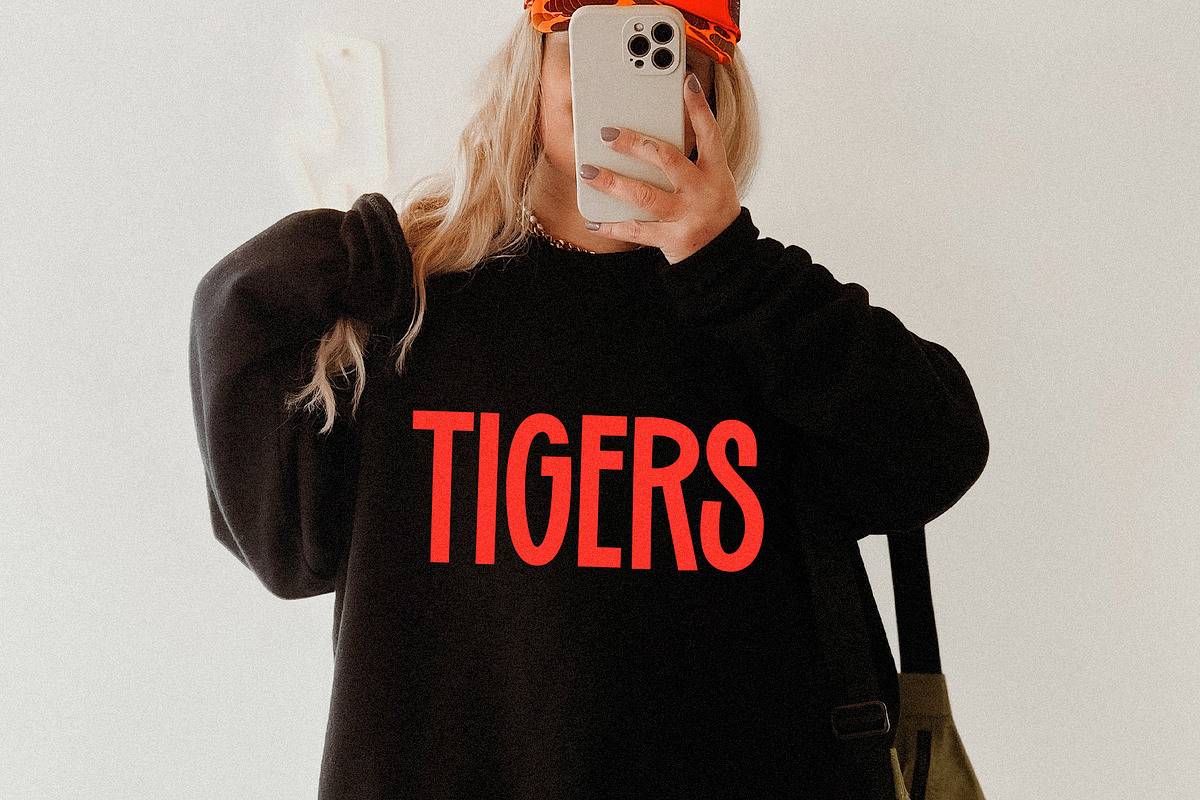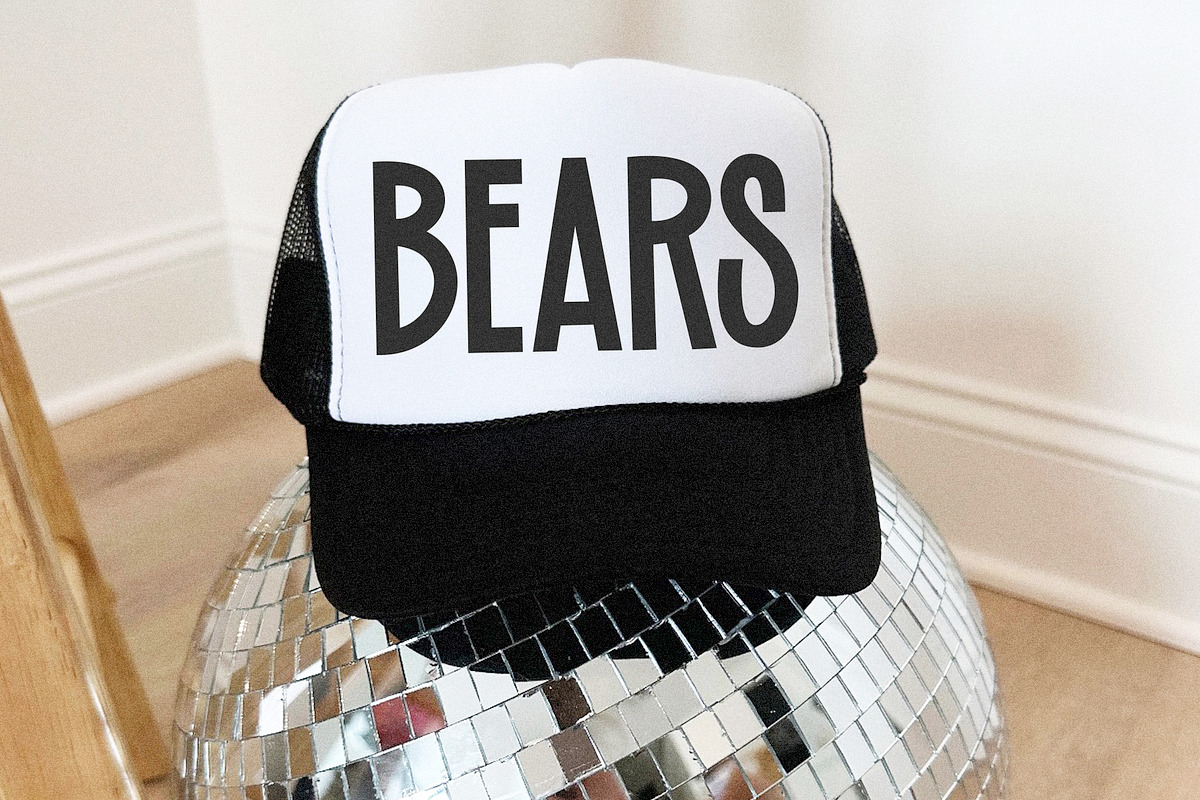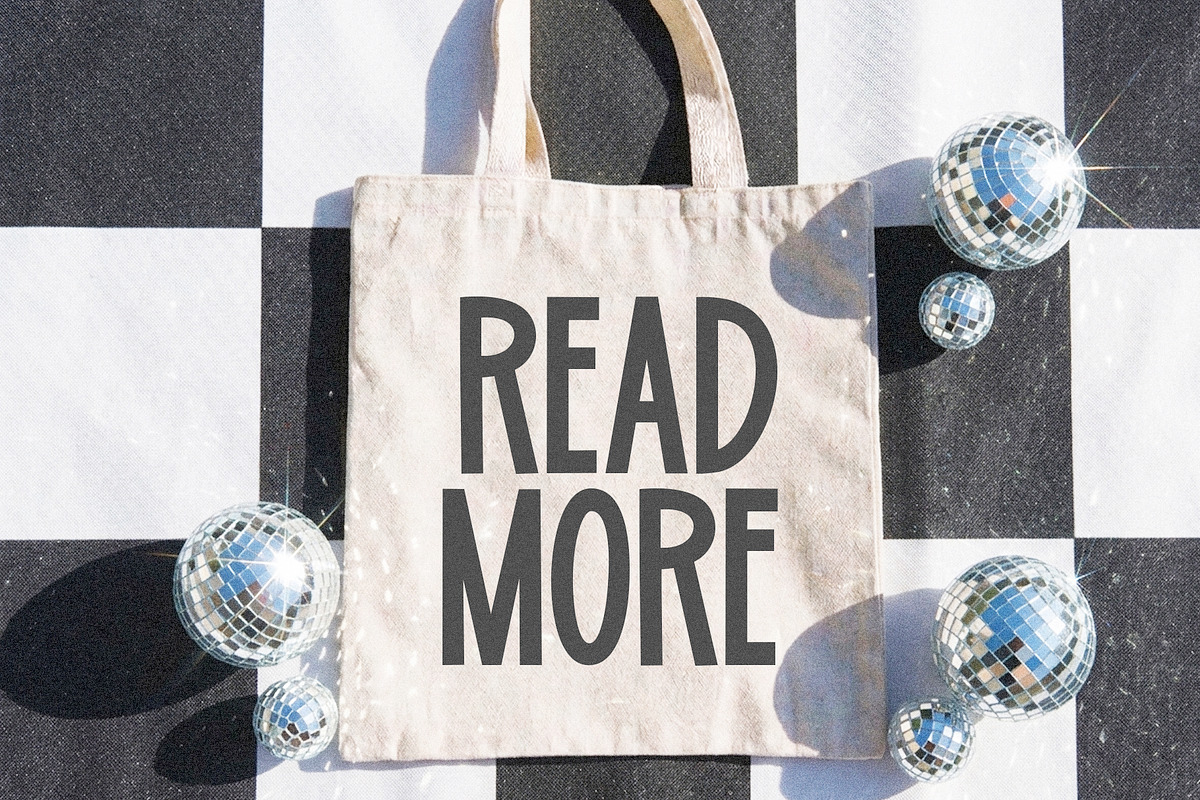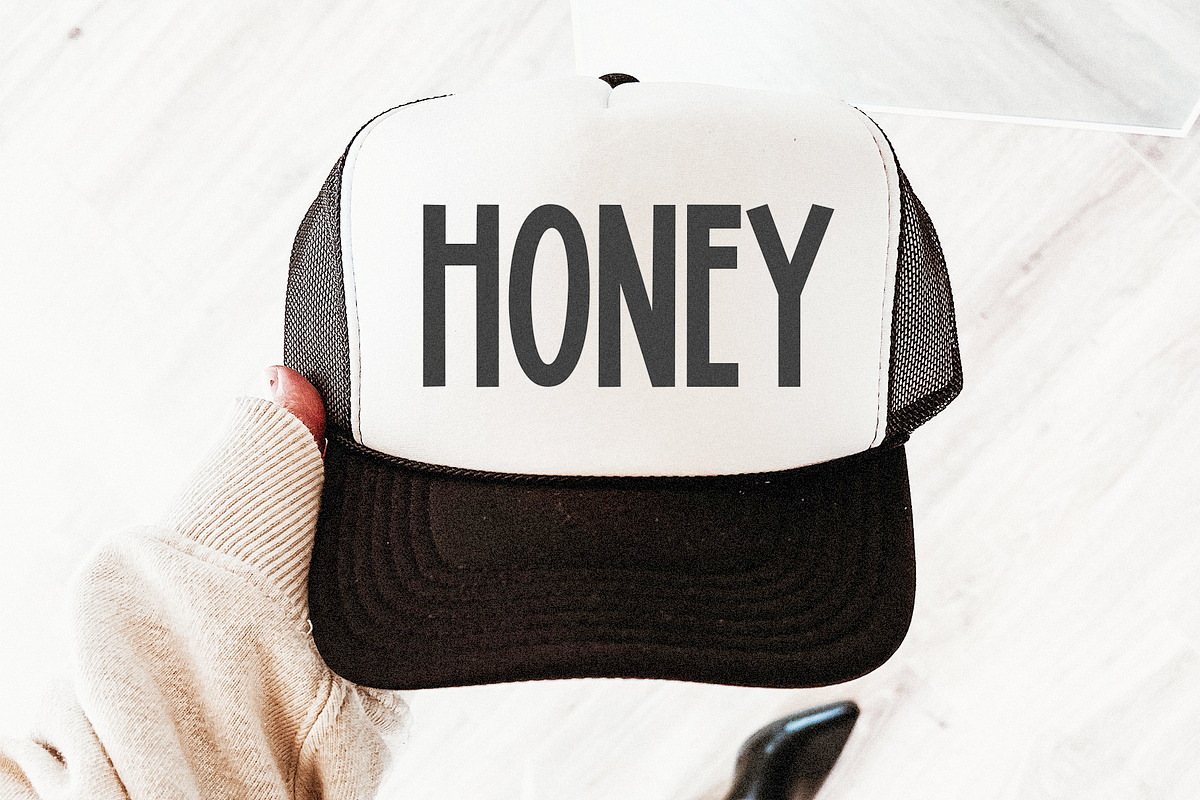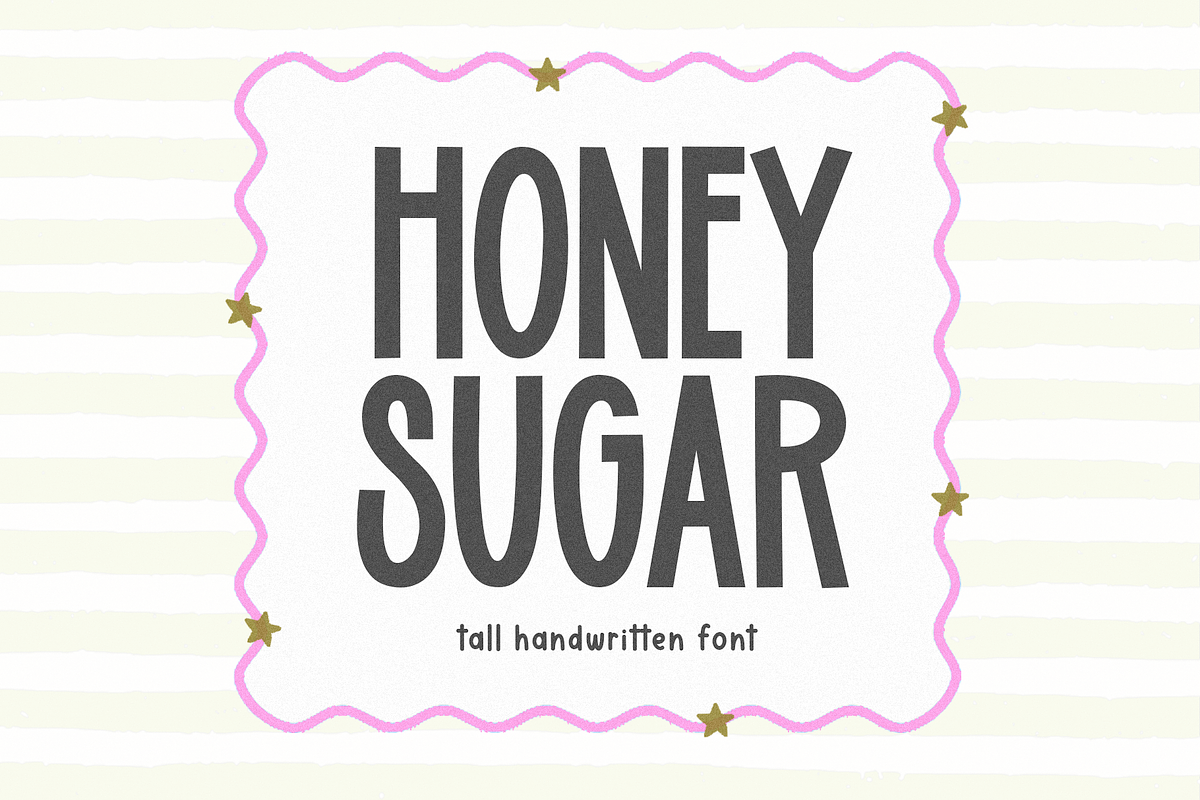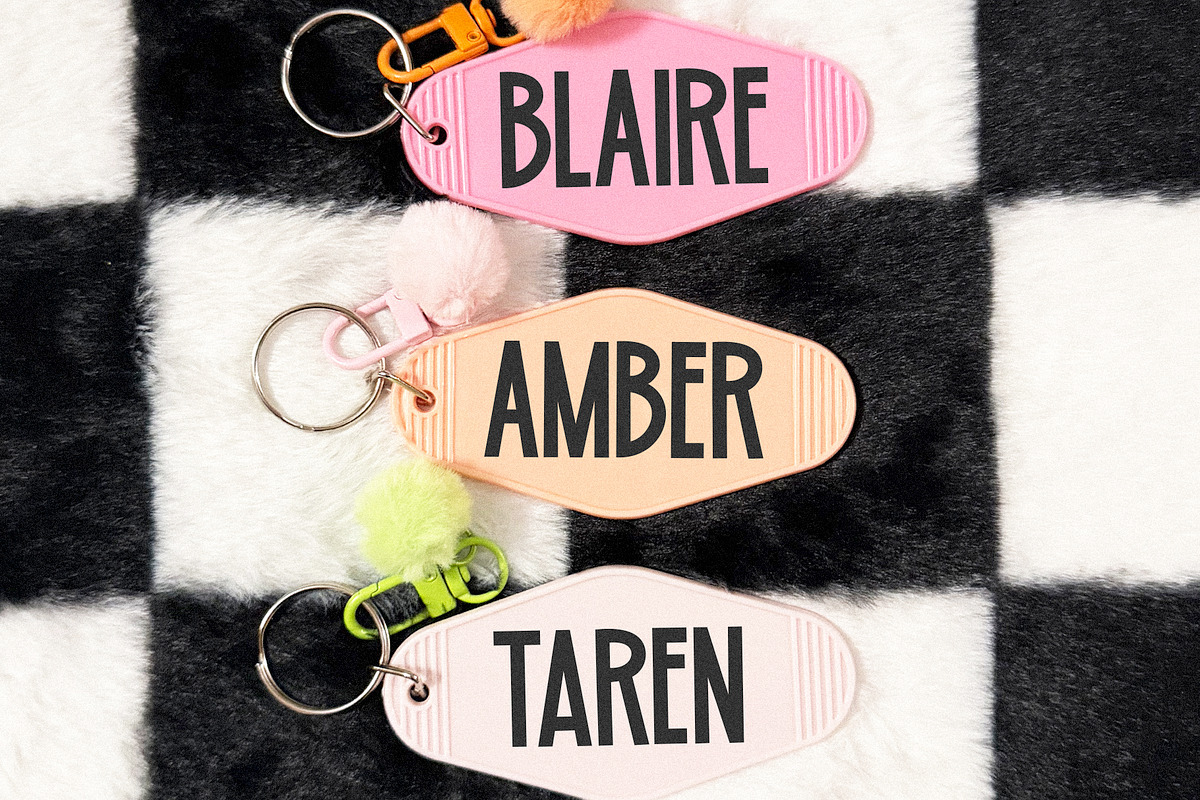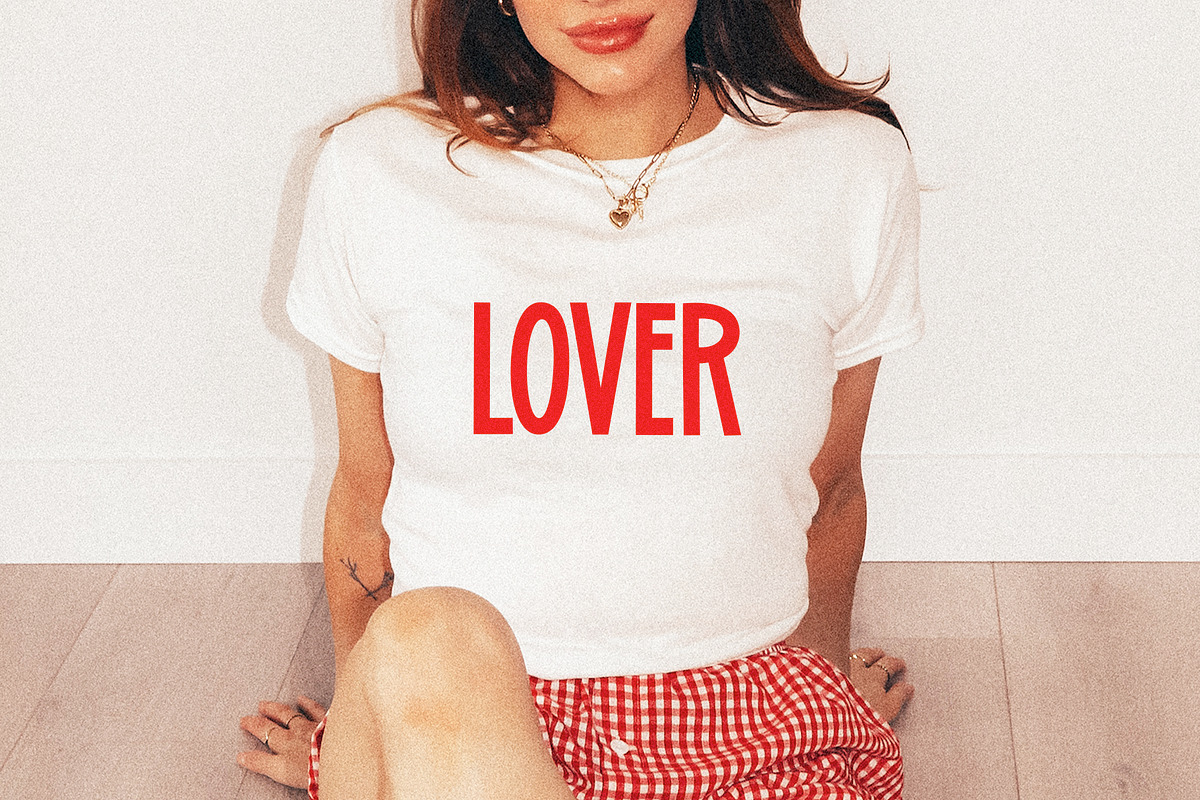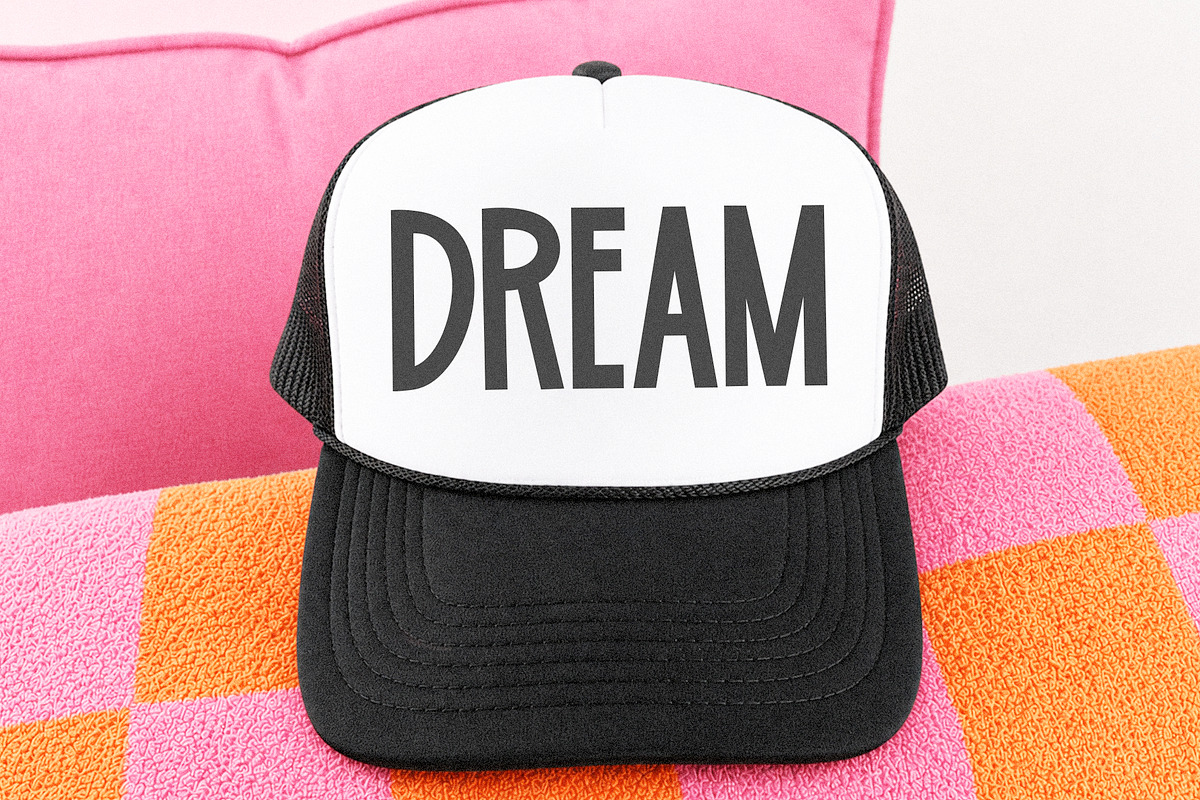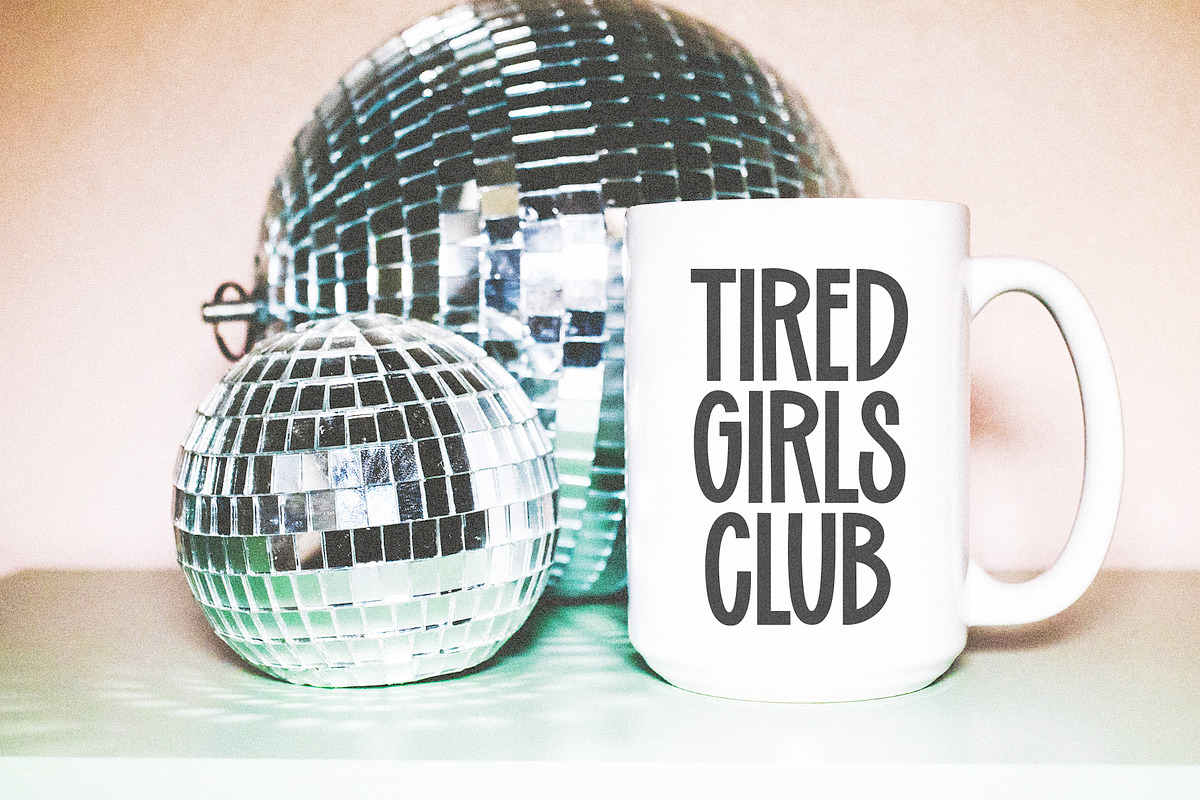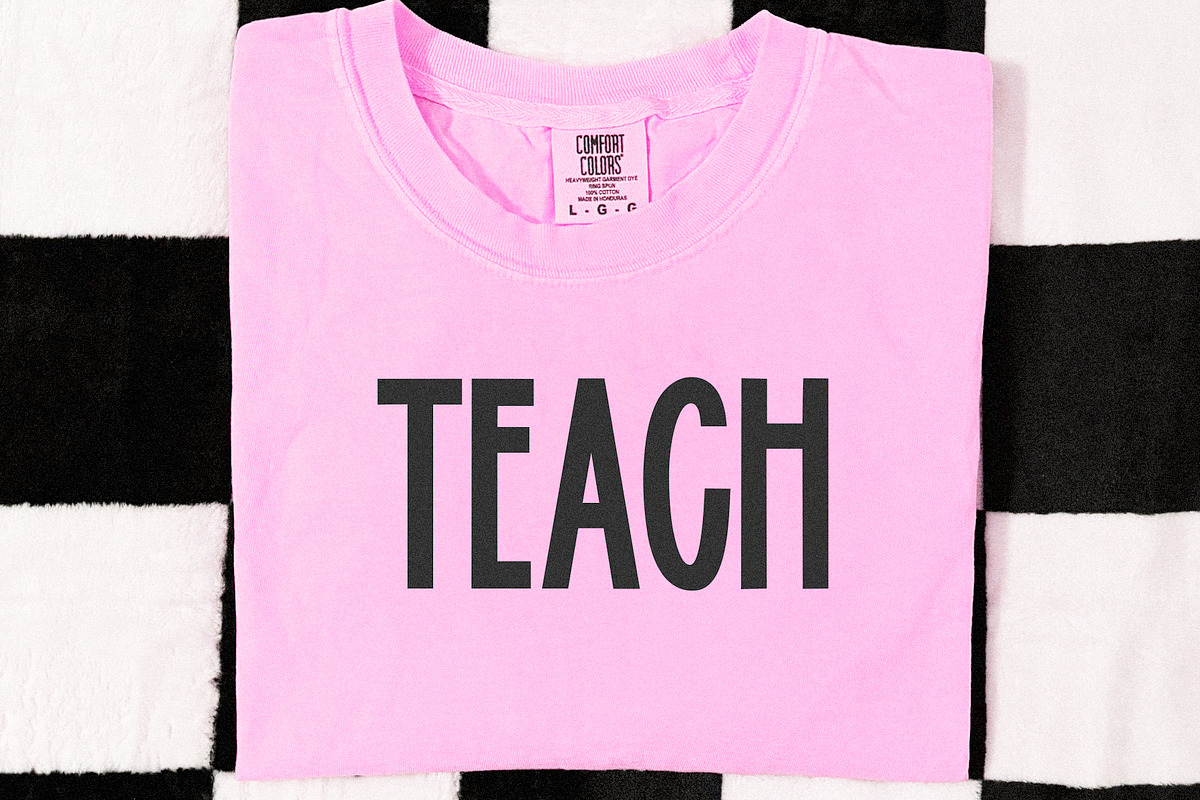
Honey Sugar | Cute Sans Font
Honey Sugar is cute + tall sans font.
This font is perfect for logos, branding, canva, cricut projects, teachers, painted banners and more!